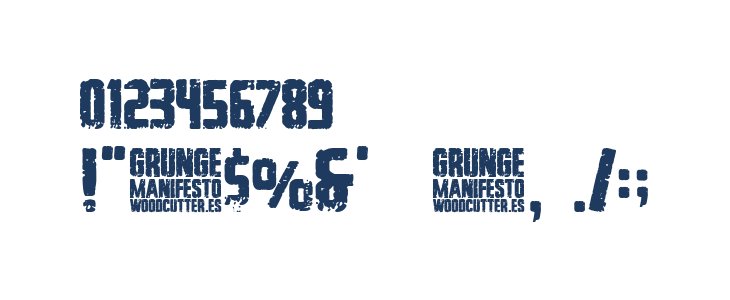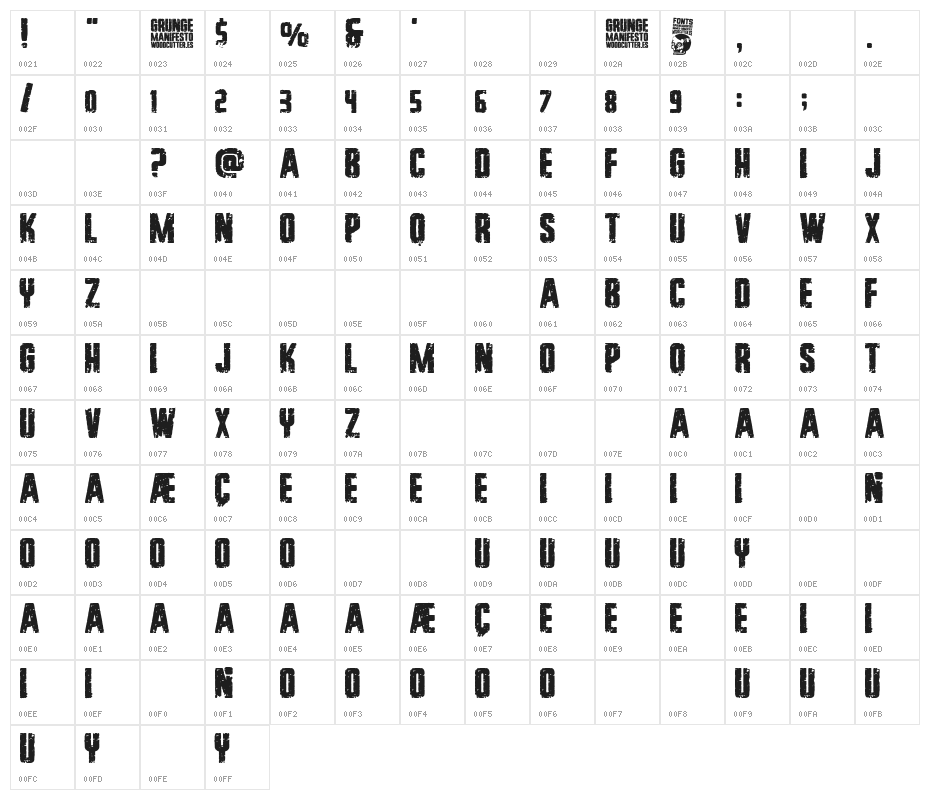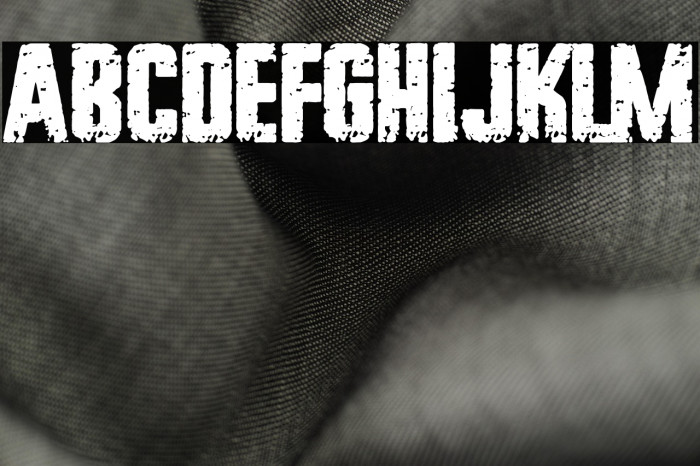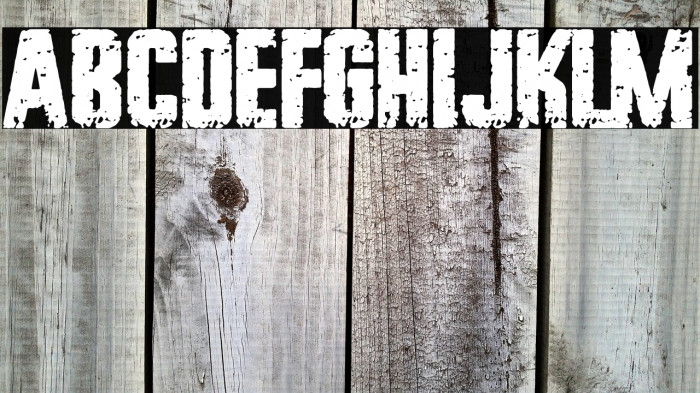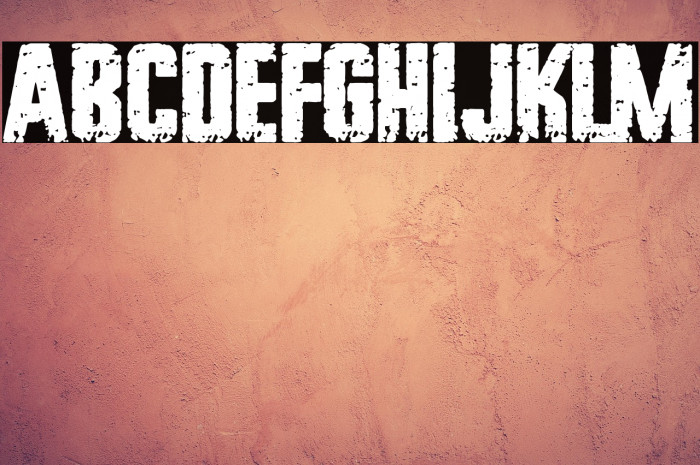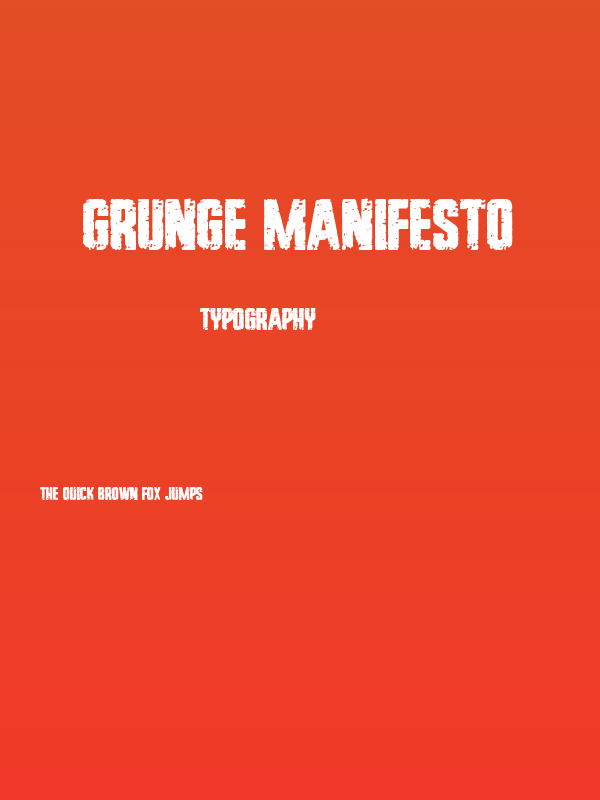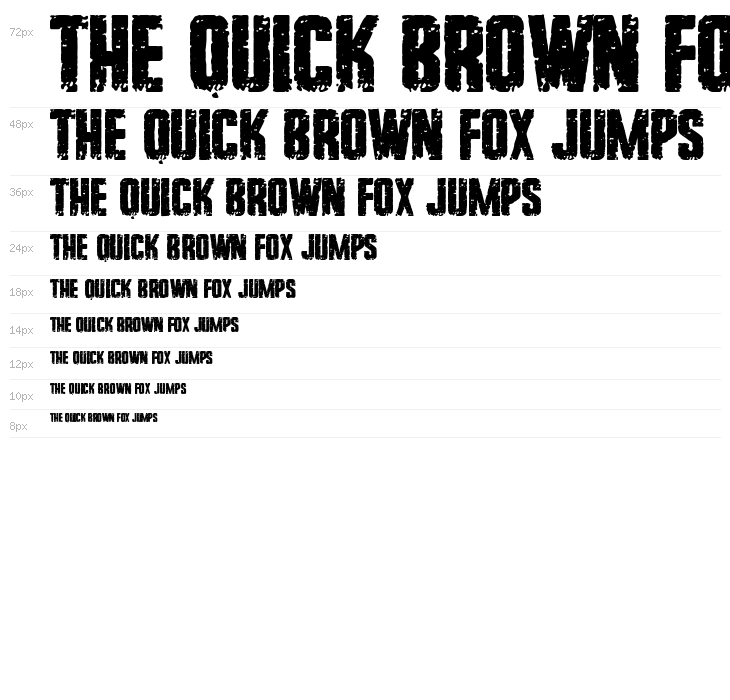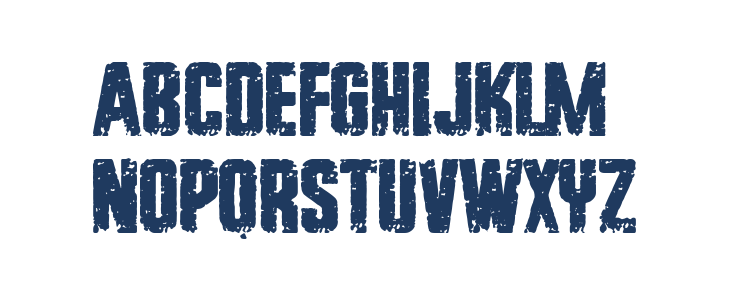
Grunge Manifesto Font
Grunge Manifesto Description
This font exudes a rugged and distressed aesthetic, characterized by its bold, blocky letters that appear weathered and worn. The texture gives it a gritty, urban feel, reminiscent of street art or vintage posters. Each character is uniquely distressed, adding to the overall grunge style. The uppercase and lowercase letters maintain a consistent weight, while the numbers and special characters follow the same distressed pattern, ensuring a cohesive look across all text. This font is perfect for projects that require a bold statement with an edgy, rebellious vibe.
| Overall Style | Grunge, Urban |
| Proposed Projects | Ideal for album covers, posters, streetwear branding, or any design needing a bold, edgy statement. |